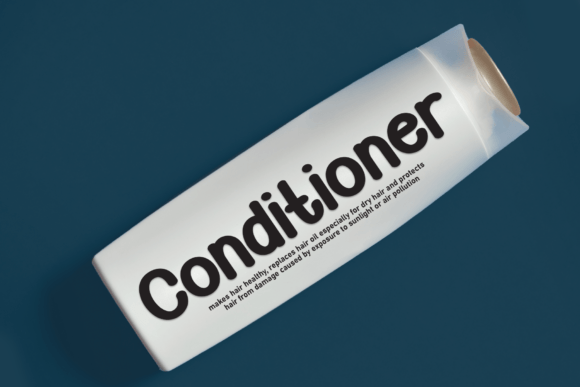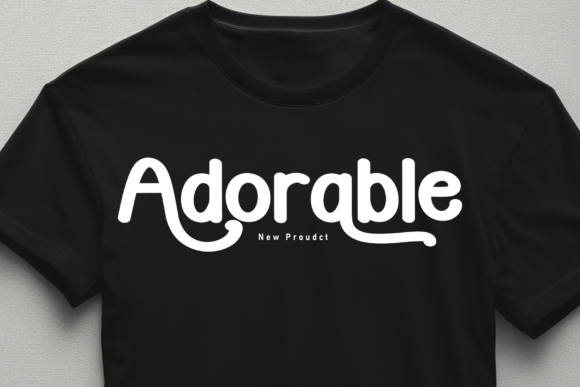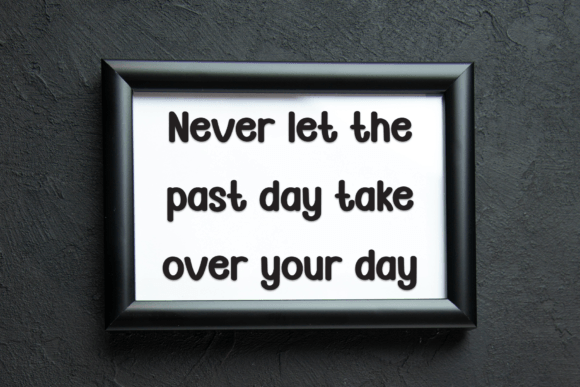
Introduction to Night Moonlit Font
Do you remember that moment when a spark of creativity hits you in the middle of the night? The moon is shining bright, and your mind is flooded with ideas. You grab your laptop, and the Night Moonlit Font is the first thing that comes to mind. This lovely and timeless handwritten font has been a game-changer for many designers, and today we’re going to dive into its world.
Whether you’re working on a creative project or need a design resource that exudes high quality and sophistication, Night Moonlit Font is an excellent choice. With its unique and beautiful touch, every letter comes alive, making your design stand out from the crowd. Plus, with a transparent background, you can easily incorporate it into any design, from logos to branding and quotes.
Key Features of Night Moonlit Font
- High-quality, unique font design suitable for creative projects and design resources.
- Features a transparent background, making it easy to use in various design applications.
- Unique characteristics include subtle, dreamy effects and a soft, moonlit-inspired aesthetic.
- Perfect for use in digital designs, such as website headers, social media graphics, and print materials like posters and flyers.
Honest Review: Night Moonlit Font
As a designer, I’m always on the lookout for high-quality design resources that can elevate my creative projects. The Night Moonlit Font is one such resource that caught my attention.
What works well: ✨ The font is incredibly versatile and can be used for a wide range of projects, from invitations to branding materials. The unique, dreamy aesthetic is perfect for creating a whimsical atmosphere. The transparent background is also a great feature, allowing for seamless integration with any design.
- Unique, dreamy aesthetic that’s perfect for whimsical designs
However, there are some limitations to consider: ⚠️ The font may not be suitable for projects that require a more modern or minimalist aesthetic. Additionally, the file size is relatively large, which may affect download times.
Overall, I’m impressed with the Night Moonlit Font and would recommend it to designers looking for a high-quality, versatile resource. With its unique aesthetic and transparent background, it’s an excellent choice for creative projects that require a touch of magic.
The Night Moonlit Font is a versatile design resource ideal for creative projects. Its high-quality, transparent background makes it perfect for use in various graphic design applications.
Use the font in combination with other high-quality design resources for a cohesive look.
Experiment with different font sizes and colors to achieve the desired effect.
Take advantage of the transparent background to create unique designs.
The Night Moonlit Font is perfect for use in creative projects such as:
– Social media graphics
– Infographics
– Brochures
– Posters
– Business cards